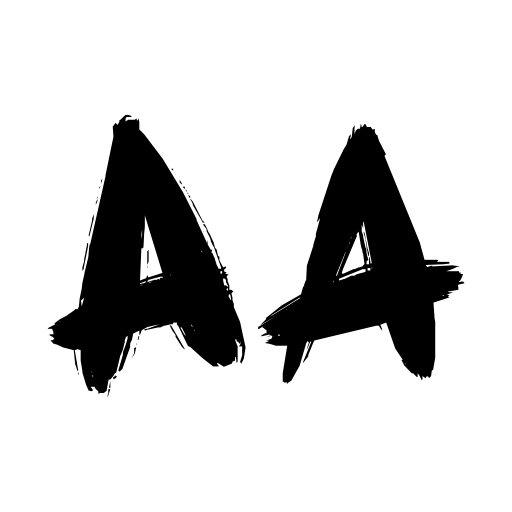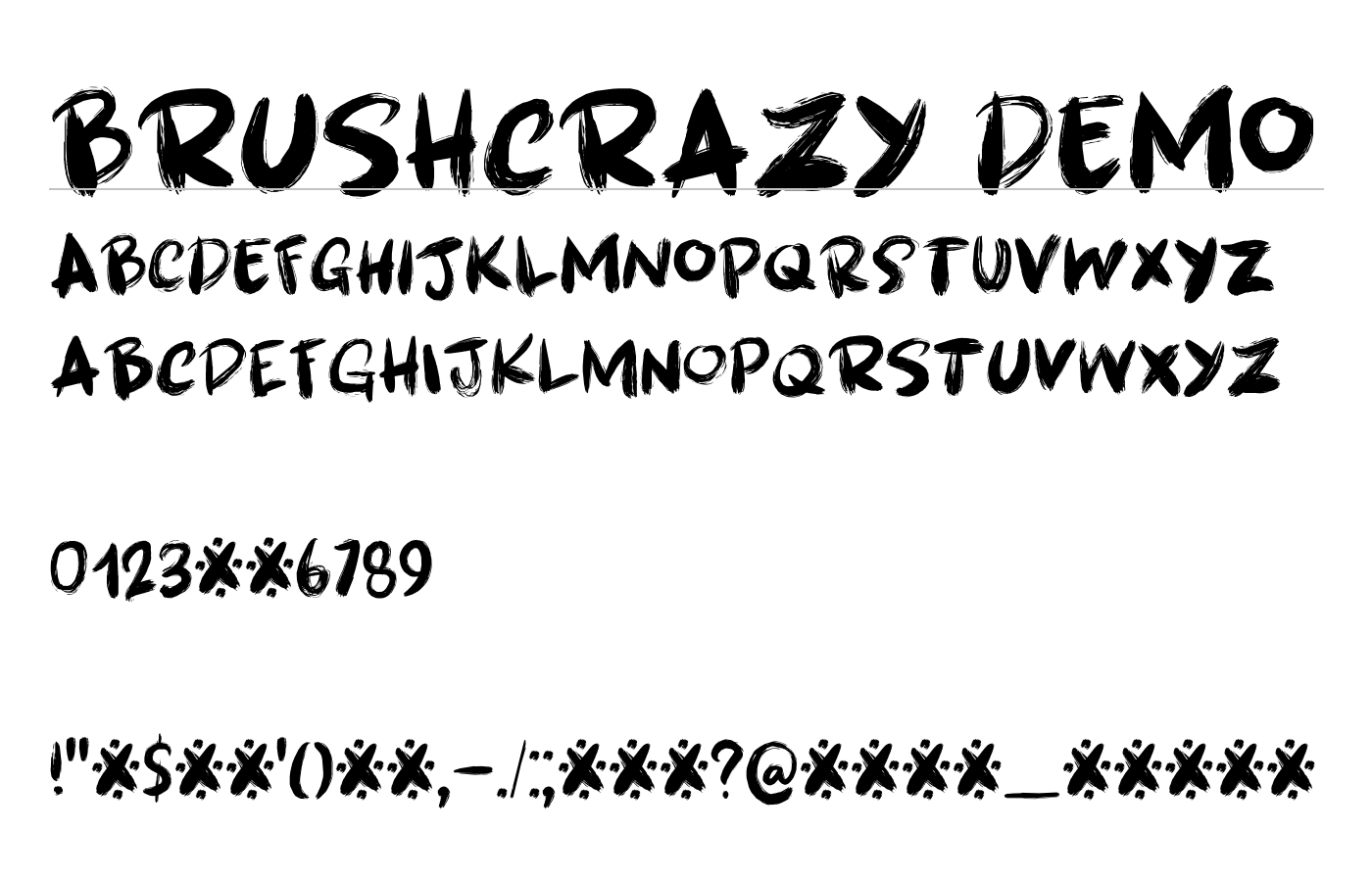
Brushcrazy DEMO is a bold, energetic brush script font featuring rough, textured strokes that mimic hand-painted lettering. With its informal, artistic vibe and all-uppercase style, it works perfectly for creative projects, posters, and branding that seek a lively, authentic feel. This font adds a playful yet striking touch, making it ideal for designs that want to stand out with a handcrafted look.
Brushcrazy DEMO Font
About Brushcrazy DEMO Font
| Font family | Brushcrazy DEMO Font |